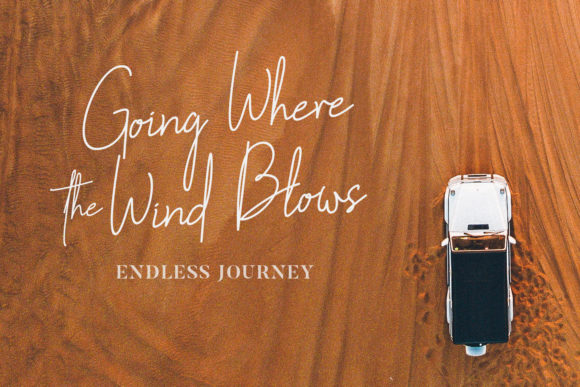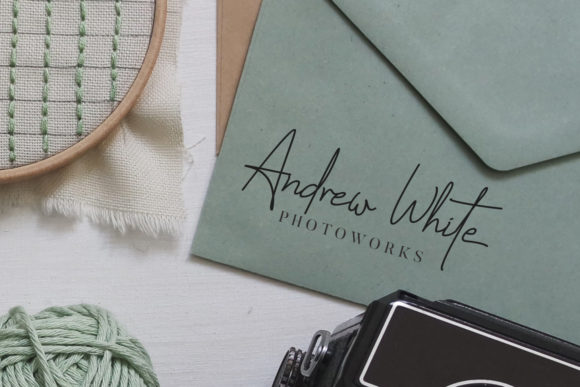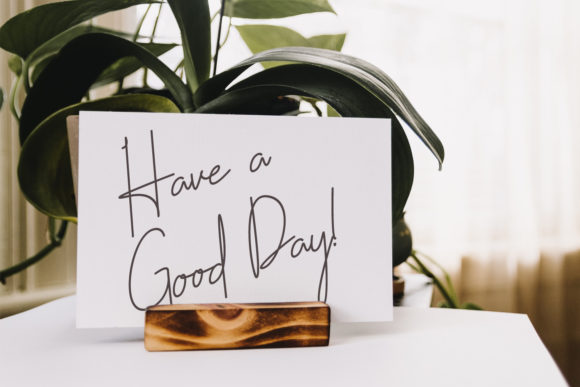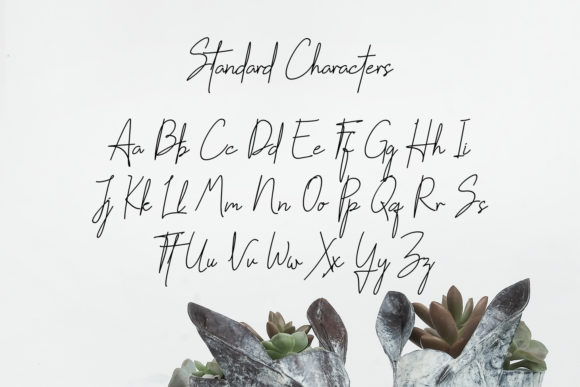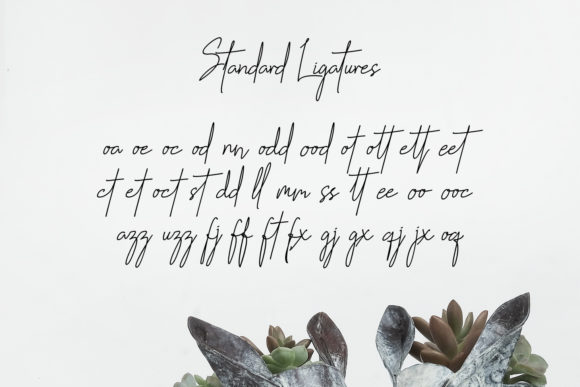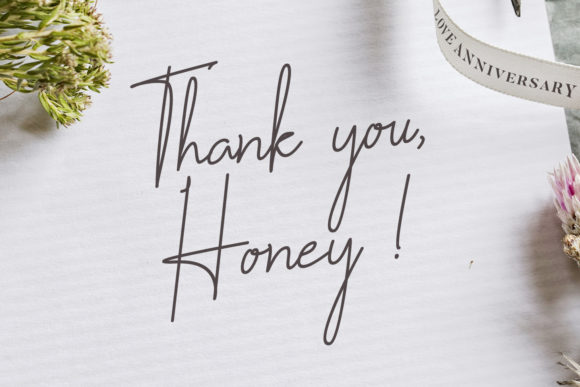
Introducing Handikraf Font: A Beautiful Signature-Style Script Font with a Handwritten Feel
Are you a designer or crafter looking for a unique and elegant font to add a personal touch to your projects? Look no further than Handikraf Font, a stunning signature-style script font that exudes a handwritten feel. In this article, we’ll dive into the world of Handikraf Font, exploring its features, benefits, and uses, as well as provide tips and inspiration for incorporating it into your design and crafting projects.
What is Handikraf Font?
Handikraf Font is a beautiful signature-style script font designed to mimic the look and feel of handwritten script. With its elegant and flowing lines, this font is perfect for adding a touch of sophistication and personality to any project. Whether you’re designing a logo, creating a craft tutorial, or simply looking for a unique font to use in your digital or print projects, Handikraf Font is an excellent choice.
Features of Handikraf Font
So, what makes Handikraf Font so special? Here are just a few of its key features:
• Handwritten feel: Handikraf Font has a genuine handwritten feel that’s perfect for creating personal and unique designs.
• Elegant and flowing lines: The font’s elegant and flowing lines make it perfect for creating beautiful and sophisticated designs.
• Signature-style script: Handikraf Font is a signature-style script font that’s perfect for creating logos, signatures, and other designs that require a personal touch.
• Versatile: Handikraf Font can be used in a variety of projects, from digital designs to print materials.
Benefits of Using Handikraf Font
So, why should you choose Handikraf Font for your design and crafting projects? Here are just a few benefits:
• Adds a personal touch: Handikraf Font adds a personal touch to your designs, making them stand out from the crowd.
• Creates a unique look: The font’s unique and elegant lines create a look that’s both sophisticated and eye-catching.
• Perfect for crafters and designers: Handikraf Font is perfect for crafters and designers who want to add a touch of elegance and personality to their projects.
• Eases readability: The font’s clear and flowing lines make it easy to read, even in small sizes.
Using Handikraf Font in Your Design and Crafting Projects
So, how can you use Handikraf Font in your design and crafting projects? Here are a few ideas to get you started:
• Logos and branding: Use Handikraf Font to create a unique and elegant logo that reflects your brand’s personality.
• Craft tutorials: Add a personal touch to your craft tutorials with Handikraf Font, perfect for creating step-by-step instructions and guides.
• Digital designs: Use Handikraf Font in your digital designs, such as social media graphics, blog posts, and email newsletters.
• Print materials: Add a touch of elegance to your print materials, such as business cards, brochures, and flyers.
Tips for Getting the Most Out of Handikraf Font
Here are a few tips for getting the most out of Handikraf Font:
• Experiment with sizes and colors: Try out different sizes and colors to find the perfect combination for your design.
• Pair with other fonts: Pair Handikraf Font with other fonts to create a unique and eye-catching look.
• Use in combination with images: Use Handikraf Font in combination with images to create a beautiful and visually appealing design.
In conclusion, Handikraf Font is a beautiful signature-style script font that’s perfect for designers and crafters looking to add a personal touch to their projects. With its elegant and flowing lines, this font is sure to make your designs stand out from the crowd. Whether you’re creating a logo, craft tutorial, or digital design, Handikraf Font is an excellent choice. So why not give it a try and see the difference it can make in your designs?